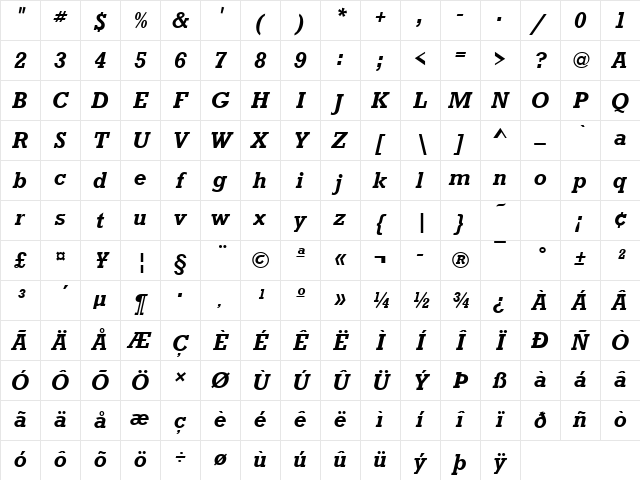
URWRogulusTMed Italic
Design Context for URWRogulusTMed
URWRogulusTMed is a composed and adaptable typeface that performs quietly and consistently across a wide range of design contexts. The slanted form adds forward momentum and visual energy.
Pro Tip: Use URWRogulusTMed for emphasis, pull quotes, and subheadings where its slanted energy can add rhythm to the layout.